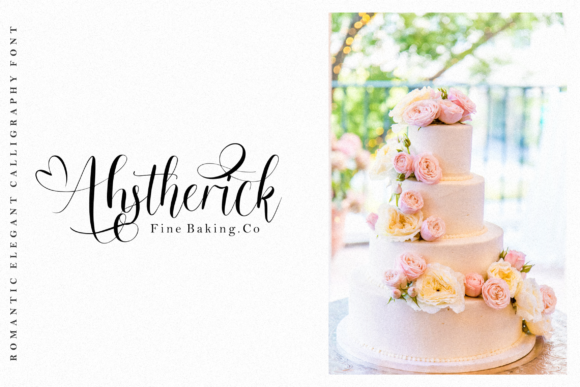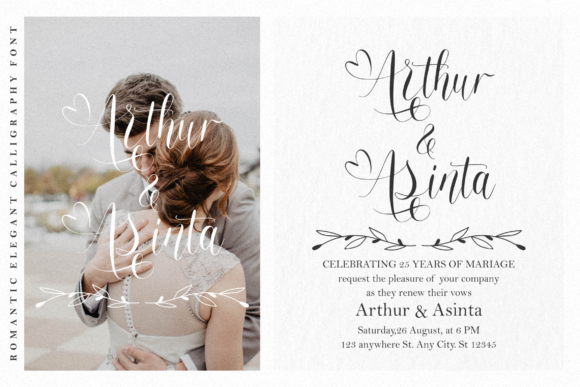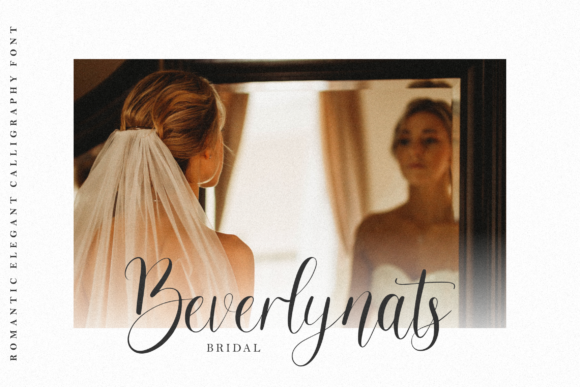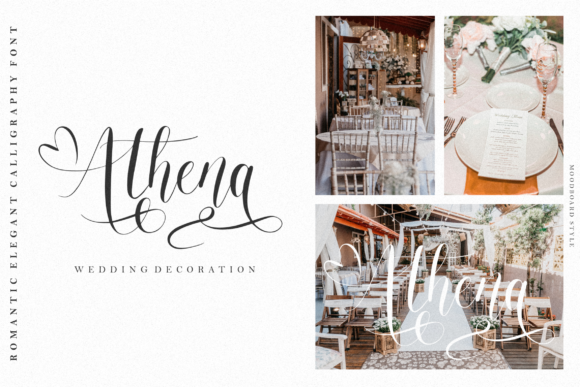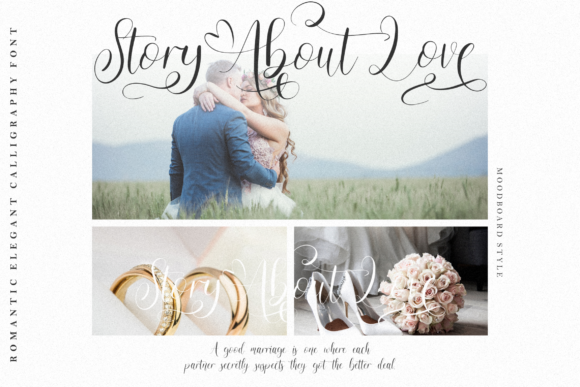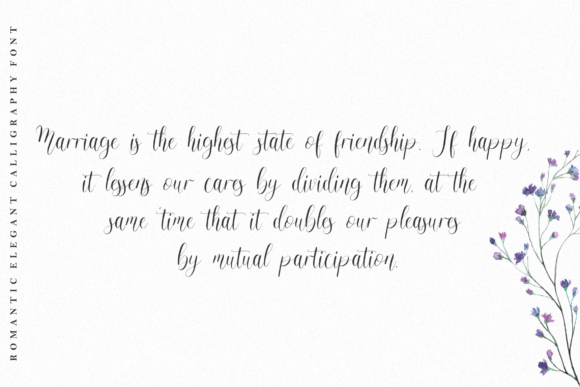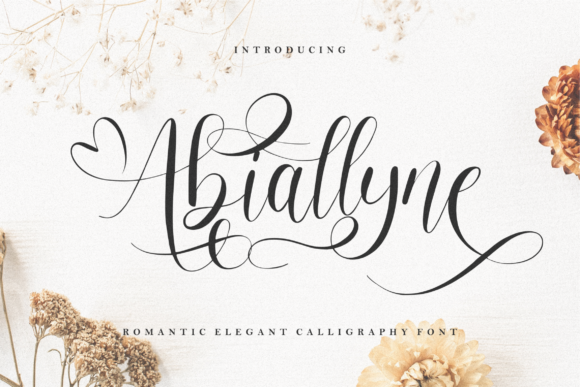
The Magical World of Abiallyne Font: A Designer’s Delight
I’ll never forget the moment I stumbled upon the perfect font for a client’s wedding invitation project. I had been searching for what felt like an eternity, trying out font after font, but nothing seemed quite right. That was until I discovered Abiallyne, a magical script font that added a touch of elegance to the entire design. In this article, I’ll share my experience with Abiallyne, its features, and how to make the most of this beautiful font.
An Honest Review of Abiallyne Font
What I Love About Abiallyne ✨
- 💫 PUA Encoding: Abiallyne is PUA encoded, which means accessing all the glyphs and swashes is a breeze!
- 🎨 Elegant Script: This font is carefully crafted with a touch of elegance, making it perfect for projects that require a sophisticated look.
- 🤩 OpenType Features: Abiallyne supports OpenType features, allowing you to create stunning designs with ease.
- ✅ Easy to Use: Whether you’re a seasoned designer or a creative hobbyist, Abiallyne is easy to use and navigate.
- ⚠️ Glyph Overload: With so many glyphs and swashes available, it’s easy to get overwhelmed. Take some time to explore the font and get familiar with its features.
- 🤯 Pairing Challenges: As with any script font, pairing Abiallyne with other fonts can be tricky. Experiment with different combinations to find the perfect match.
The Backstory of Abiallyne Font
Abiallyne was created by a talented type designer who wanted to craft a font that would add a touch of magic to any design project. Inspired by traditional calligraphy and modern script fonts, Abiallyne is the result of careful attention to detail and a passion for typography.
| Font Name | Abiallyne Font |
| Author | qwrtypefoundry |
PUA (Private Use Area) encoding allows font creators to include additional characters, glyphs, and swashes that aren’t part of the standard Unicode character set. This means you can access a wider range of design elements, making it easier to create unique and visually appealing designs.
Q: Can I pair Abiallyne with other fonts?
Yes, Abiallyne can be paired with other fonts to create stunning designs. Experiment with different combinations to find the perfect match for your project.